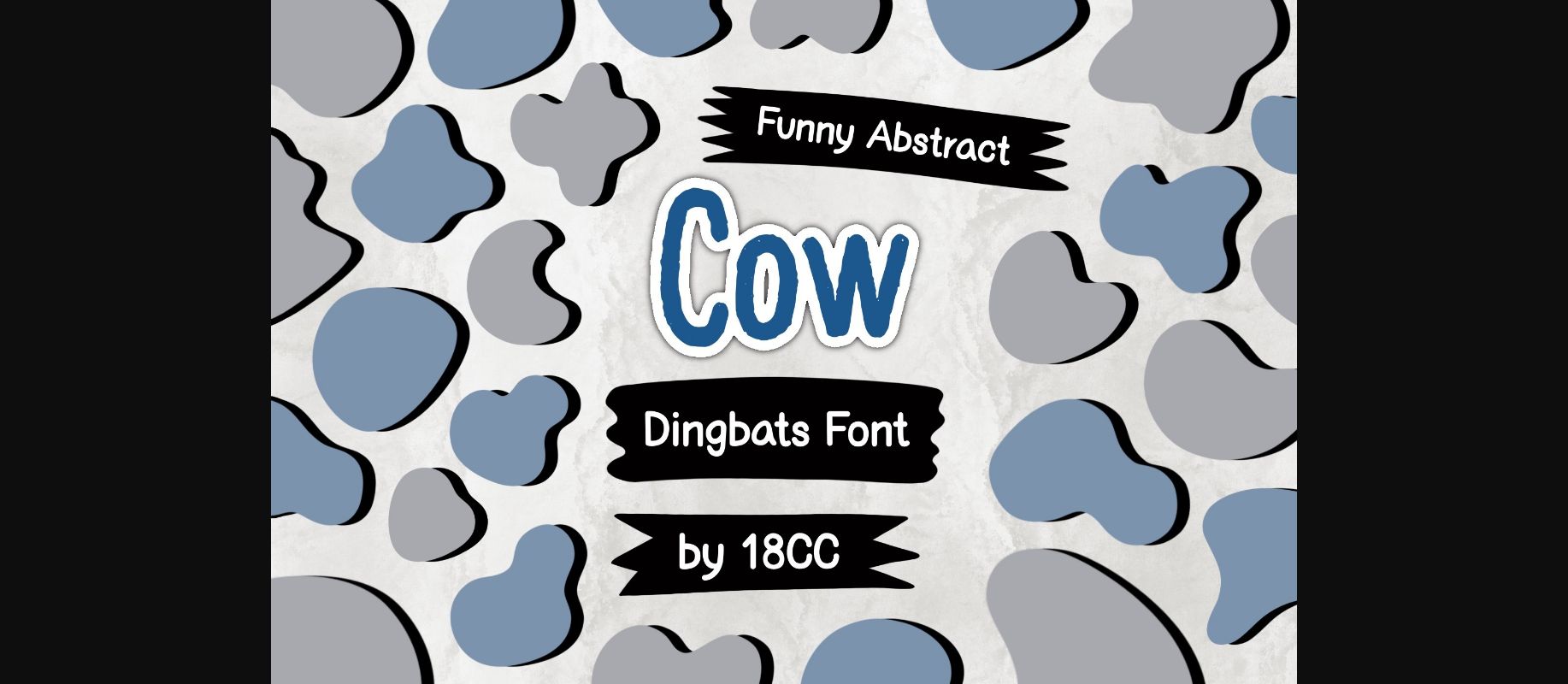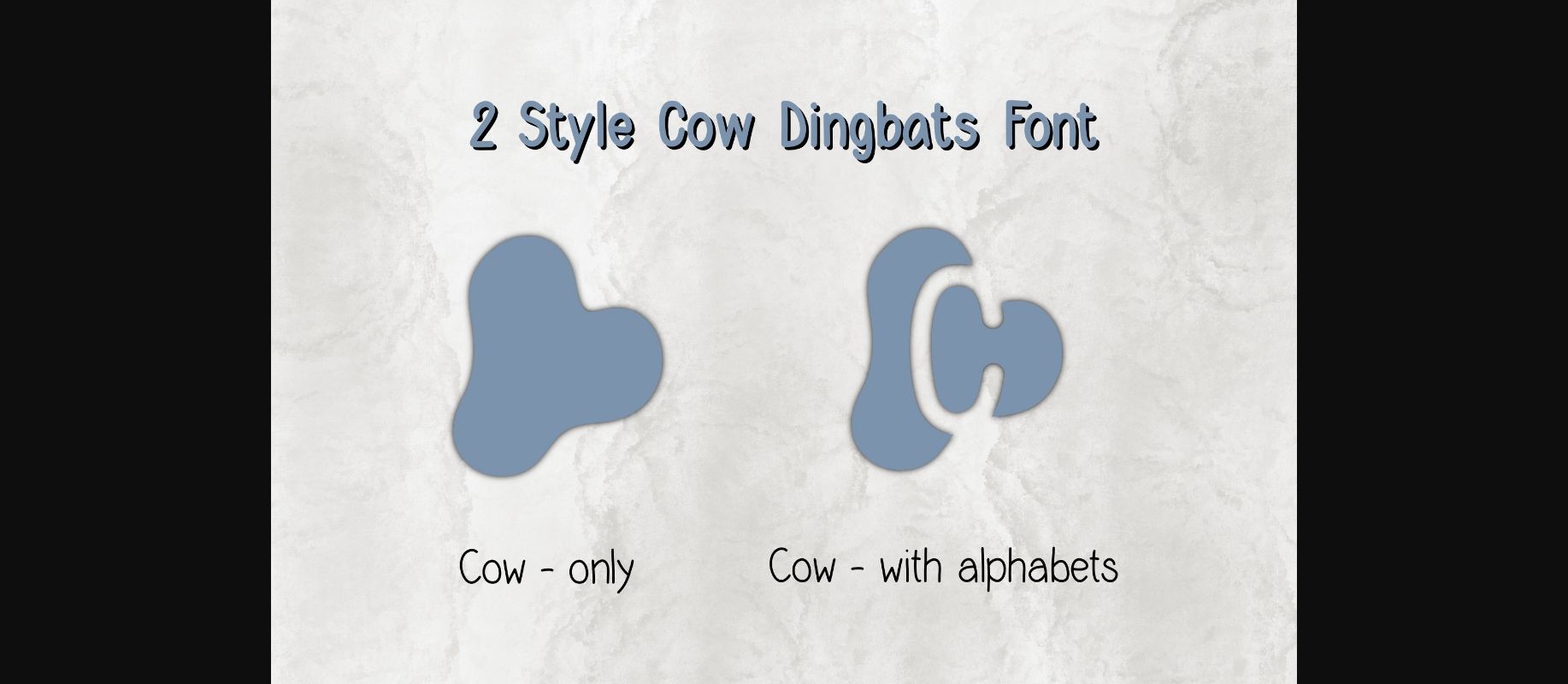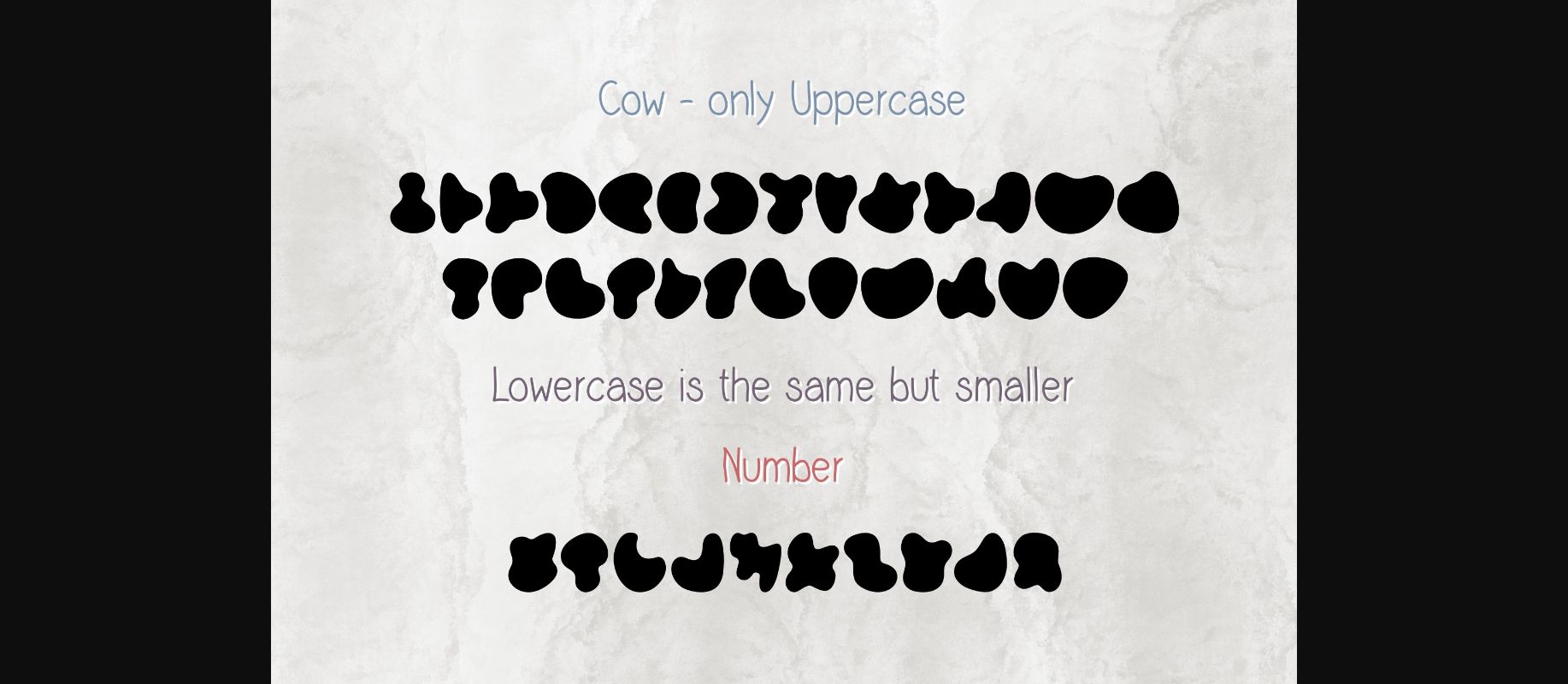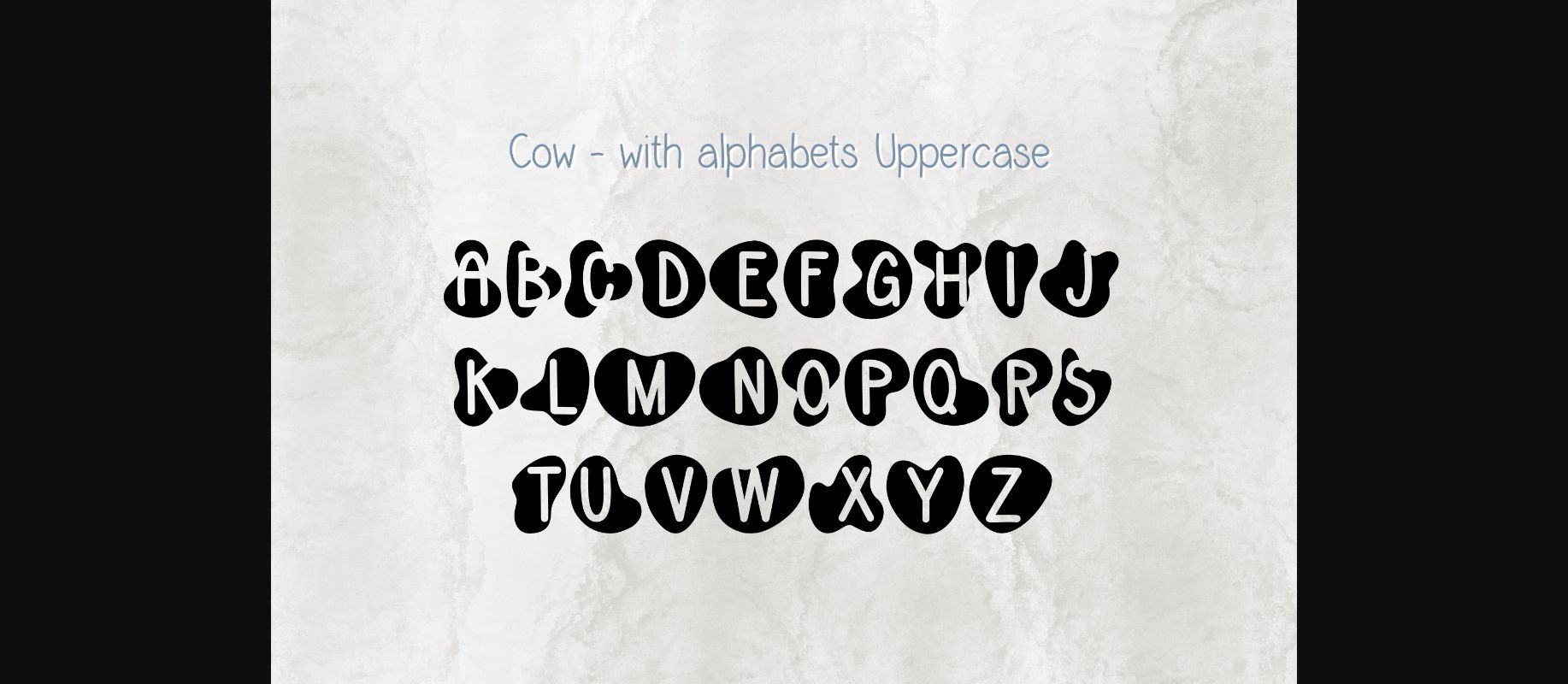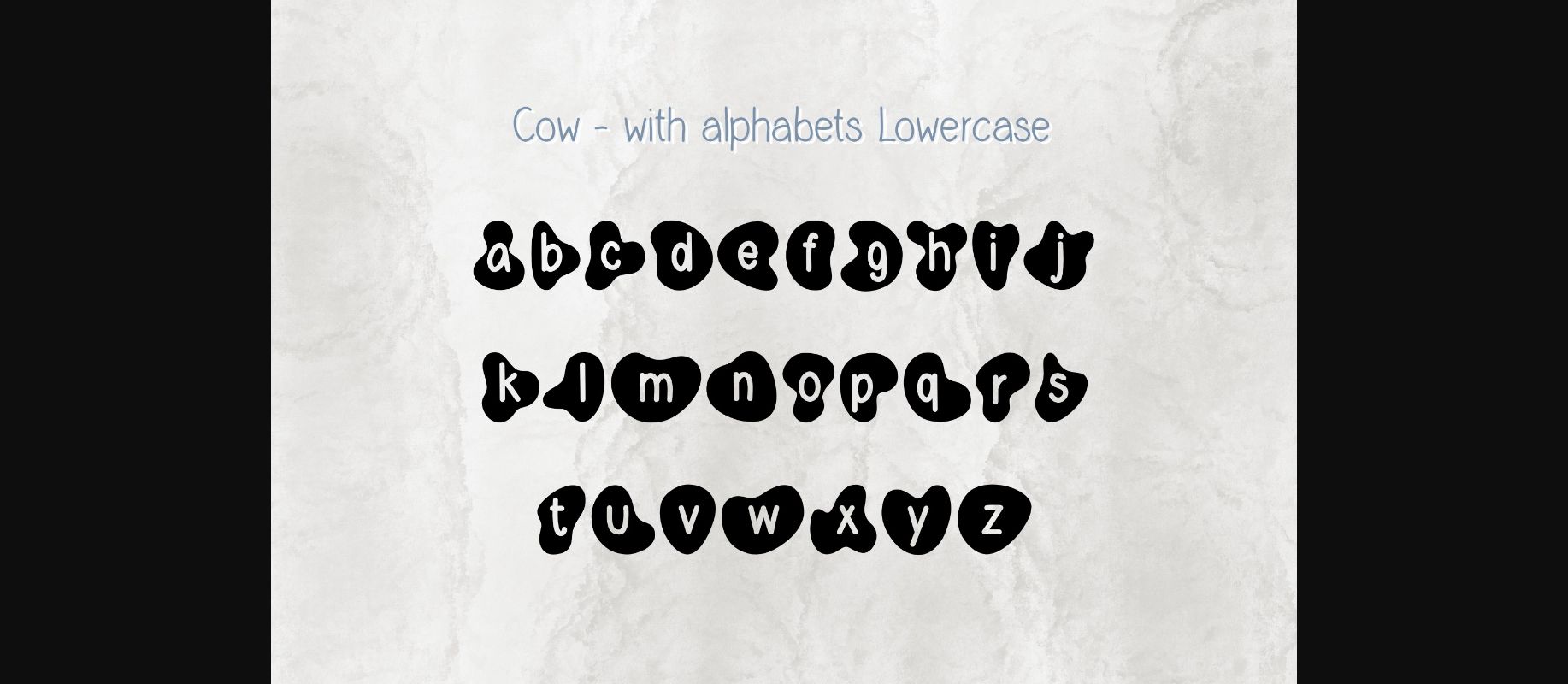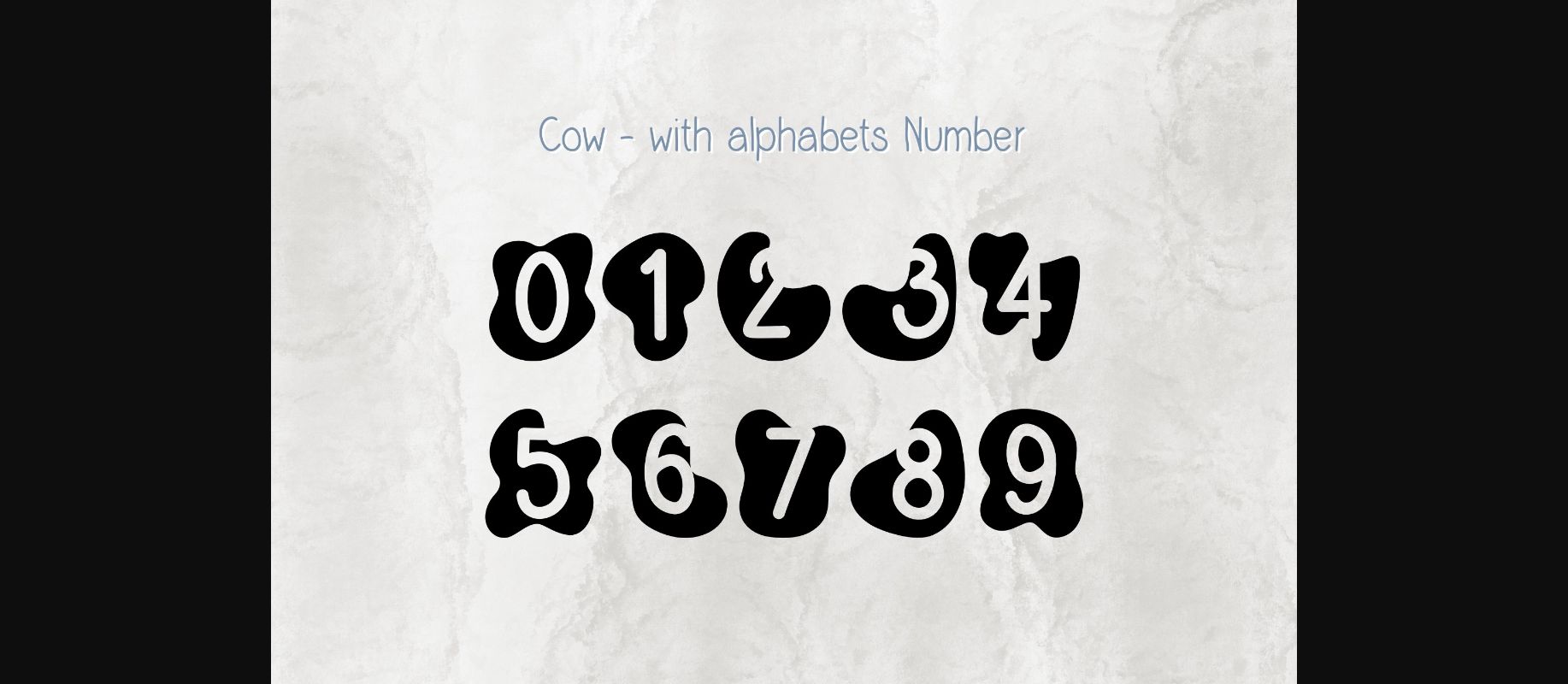
HomeDecorative FontsCow Font Decorative Fonts Cow Font FacebookXPinterestWhatsApp 1 of 9 ... Cow Font Poster 2... Cow Font Poster 3... Cow Font Poster 4... Cow Font Poster 5... Cow Font Poster 6... Cow Font Poster 7... Cow Font Poster 8... Cow Font Poster 9... About Cow Font Cow is a cute and fun duo font (dingbats and decorative). This font is the perfect fit for all of your logos, branding, social media, and crafty DIY projects. DOWNLOAD NOW People also explored Mondaylika Font Aleta Font Butter Factory Font Black Unicorn Font Bucking Font Crusthi Ozaliea Font Strong Full Font Sepatik Font Creamy Chocolate Font 293 0 TagsCowCow Font Previous articleHalloween Island FontNext articleJenita Monogram Font LEAVE A REPLY Cancel reply Comment: Please enter your comment! Name:* Please enter your name here Email:* You have entered an incorrect email address! Please enter your email address here Website: Save my name, email, and website in this browser for the next time I comment. Personal Use Free Victorian Ornaments Personal Use Free Read more about this font Playground Clip Art Personal Use Free Read more about this font Hashira Mt Personal Use Free Read more about this font Hubbies Personal Use Free Read more about this font BLOG Free vs Paid Fonts: Why Investing in Premium Fonts Is Worth It Free vs Paid Fonts: Why Premium Fonts Are Worth It in 2025 The debate of free vs paid fonts continues in the design world. While... Free Fonts Risk: Why Free Fonts Can Be Dangerous for Designers Best Fonts for YouTube Videos: Make Your Thumbnails Stand Out 5 Fonts That Will Dominate Design Trends in 2026